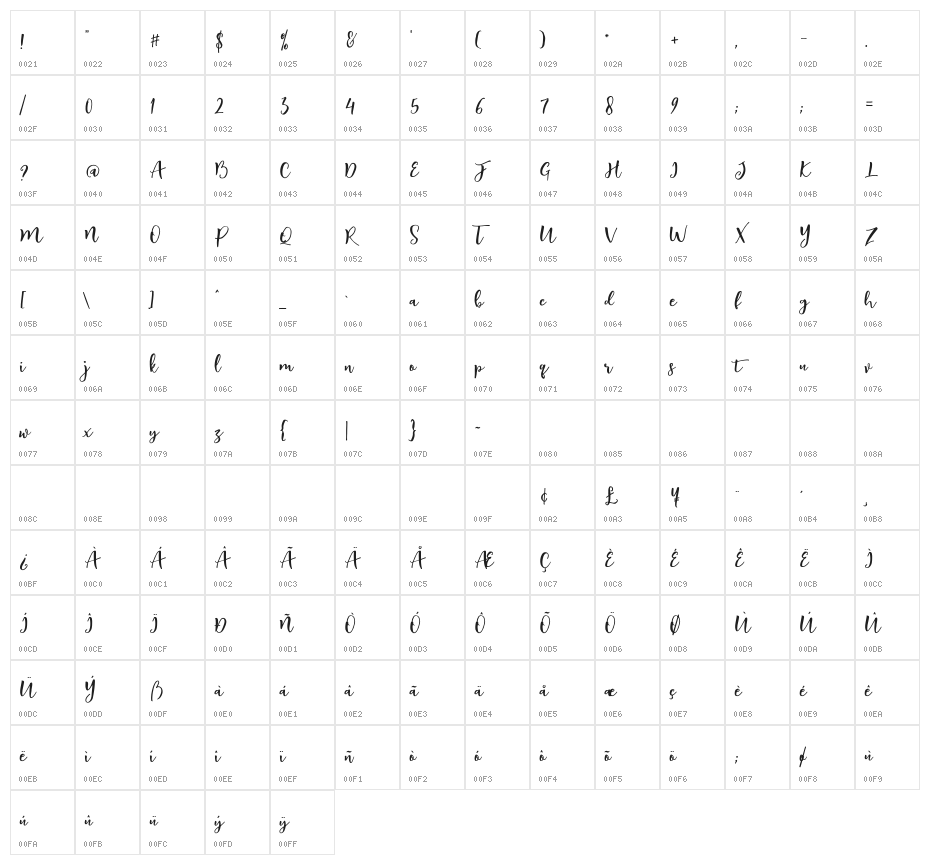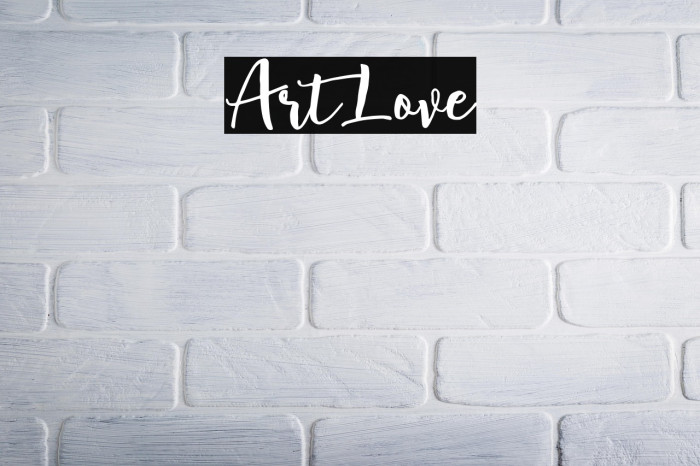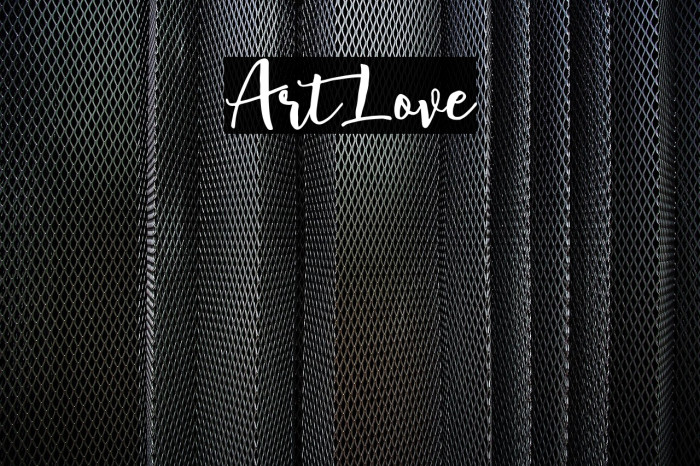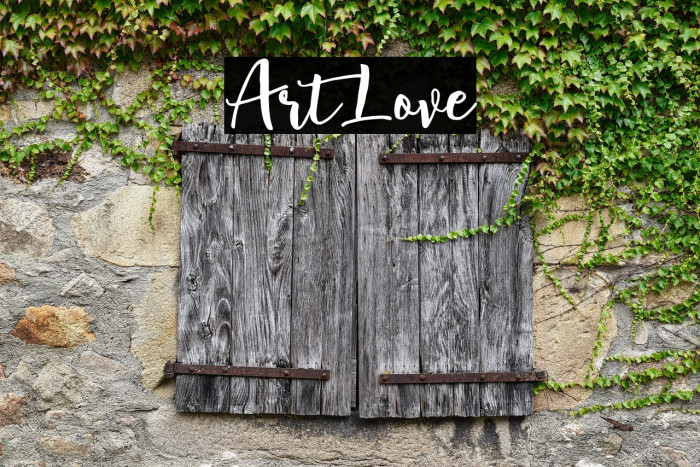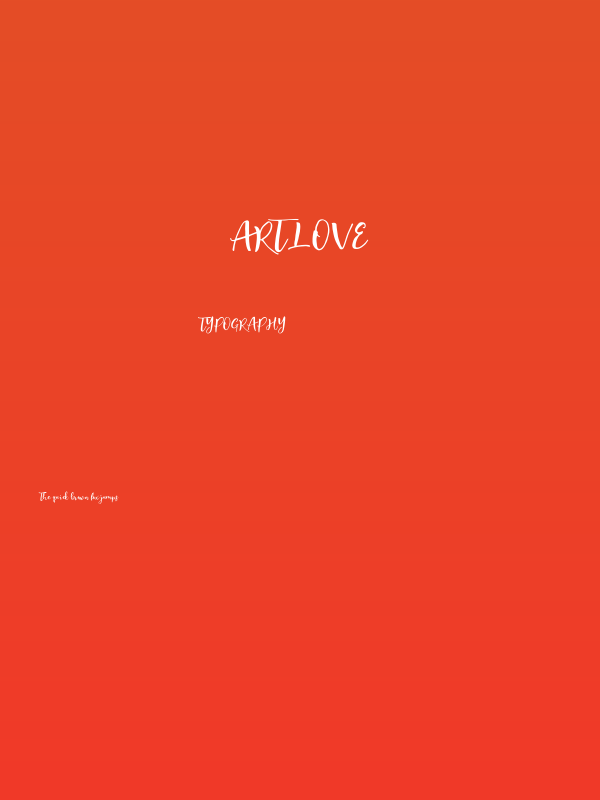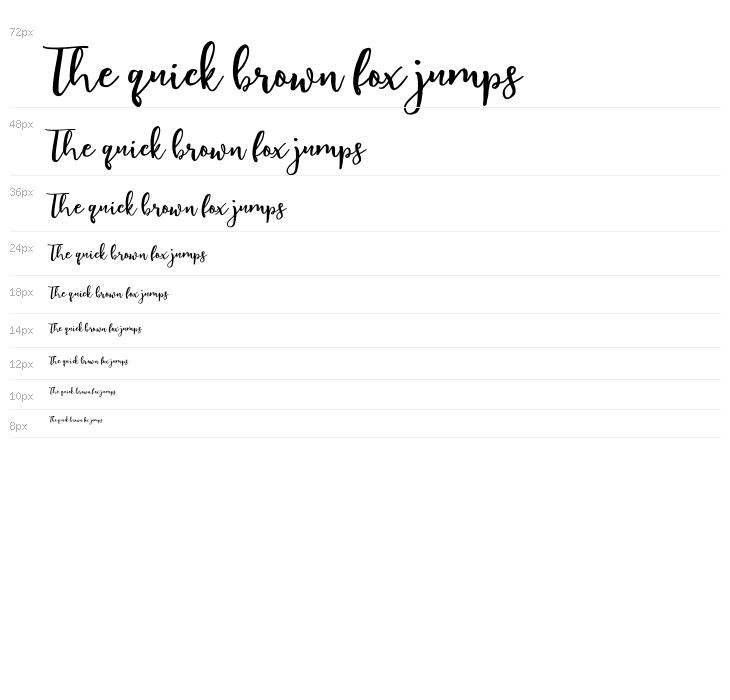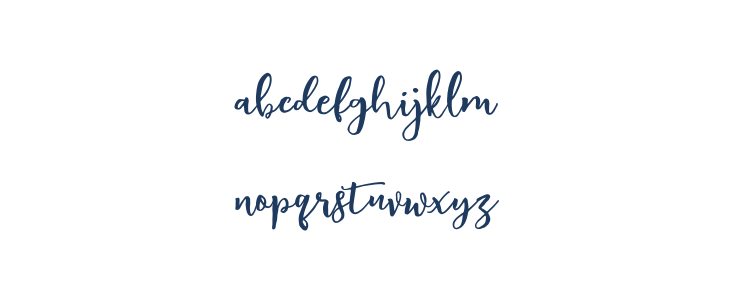
ArtLove Font
ArtLove Description
This font features a lively and expressive handwritten style, characterized by its flowing, cursive letters. The uppercase letters exhibit a playful yet elegant flair, with varying stroke widths that add a dynamic quality to the text. The lowercase letters maintain a consistent style, complementing the uppercase with their smooth curves and loops. Numbers and special characters are crafted with the same attention to detail, ensuring a cohesive look across all text elements. The overall appearance is both artistic and approachable, making it suitable for creative and personal projects.
| Proposed Projects | Ideal for wedding invitations, greeting cards, personal branding, and artistic projects. |